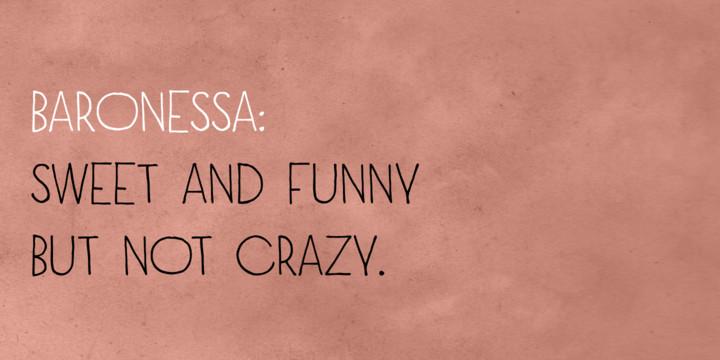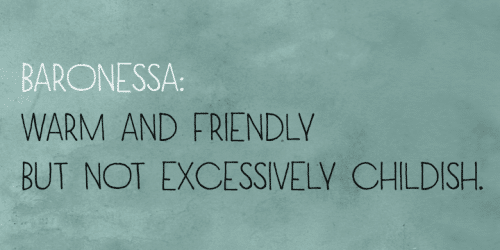
Baronessa is a handmade font with a “once-upon-a-time” world feeling, warm and friendly but not excessively childish. No swashes or ornaments, subtle irregularity and carefully chosen letter shapes make it sweet and funny but not crazy.